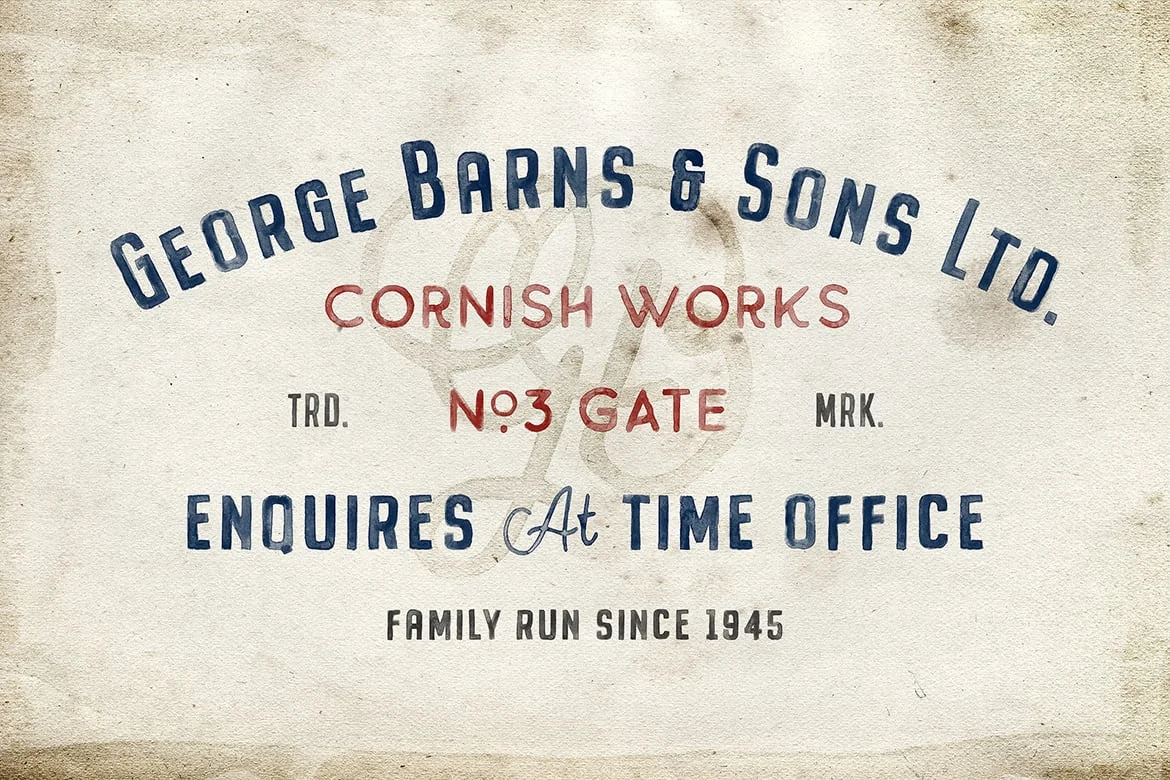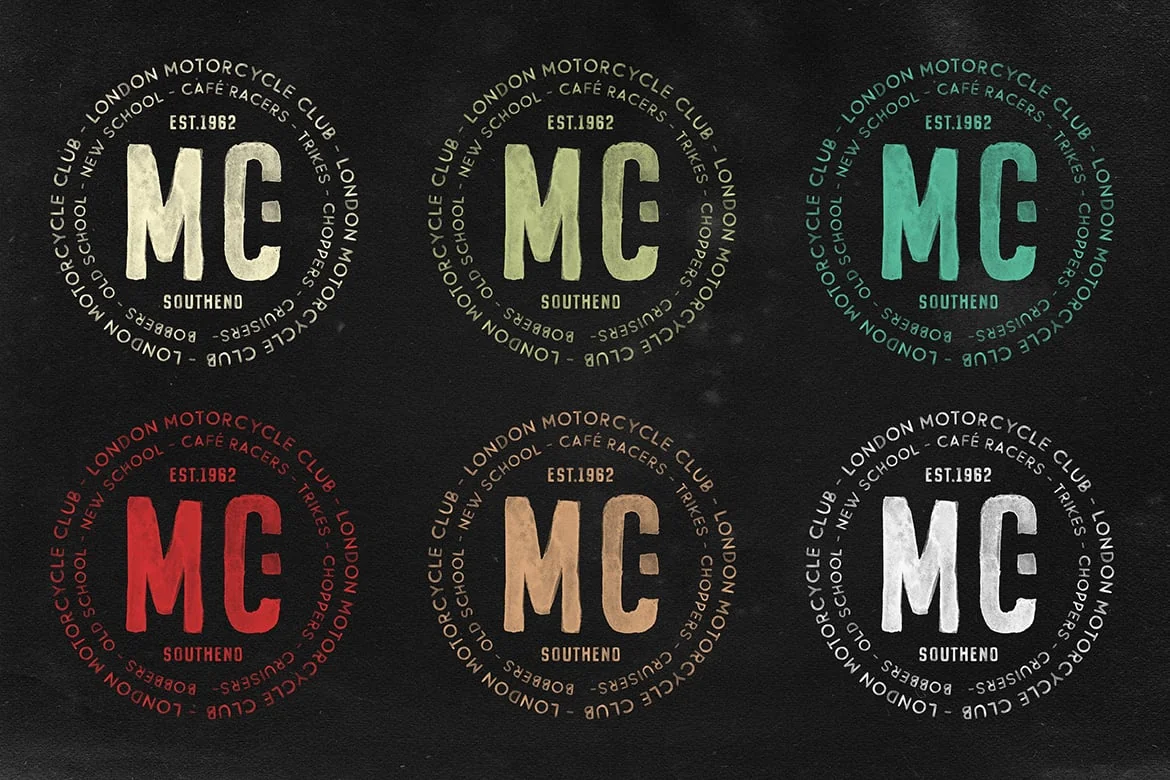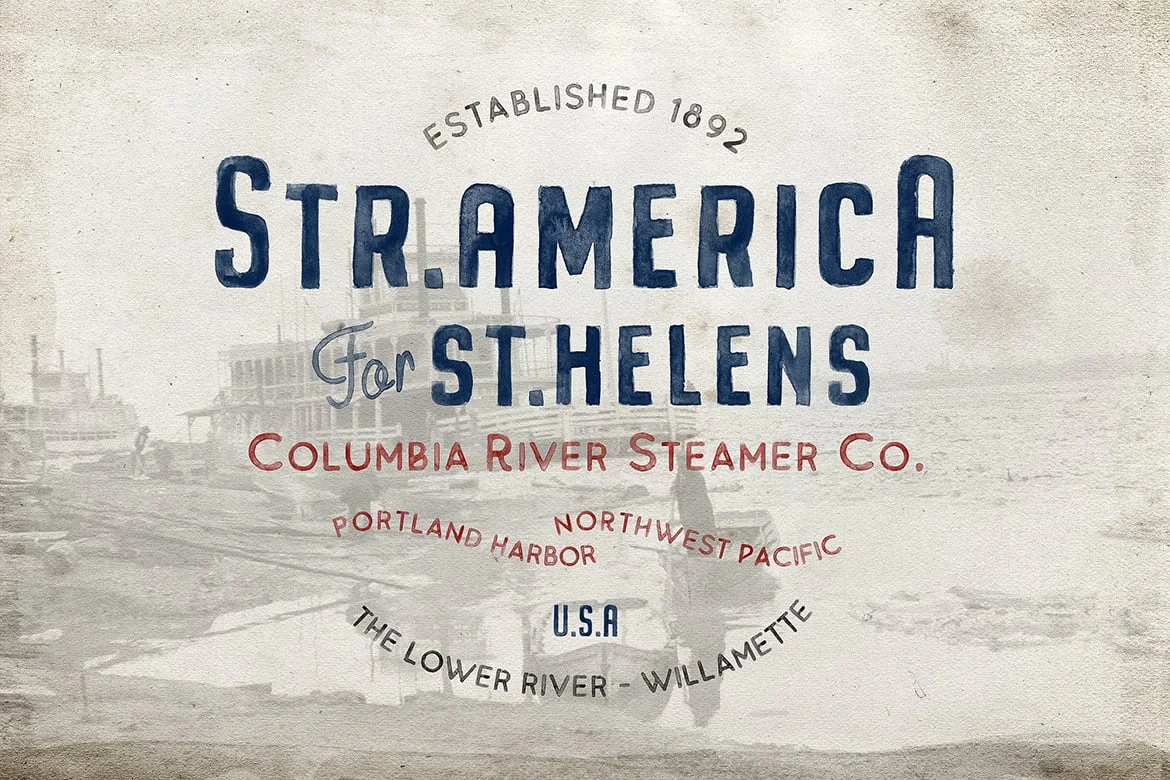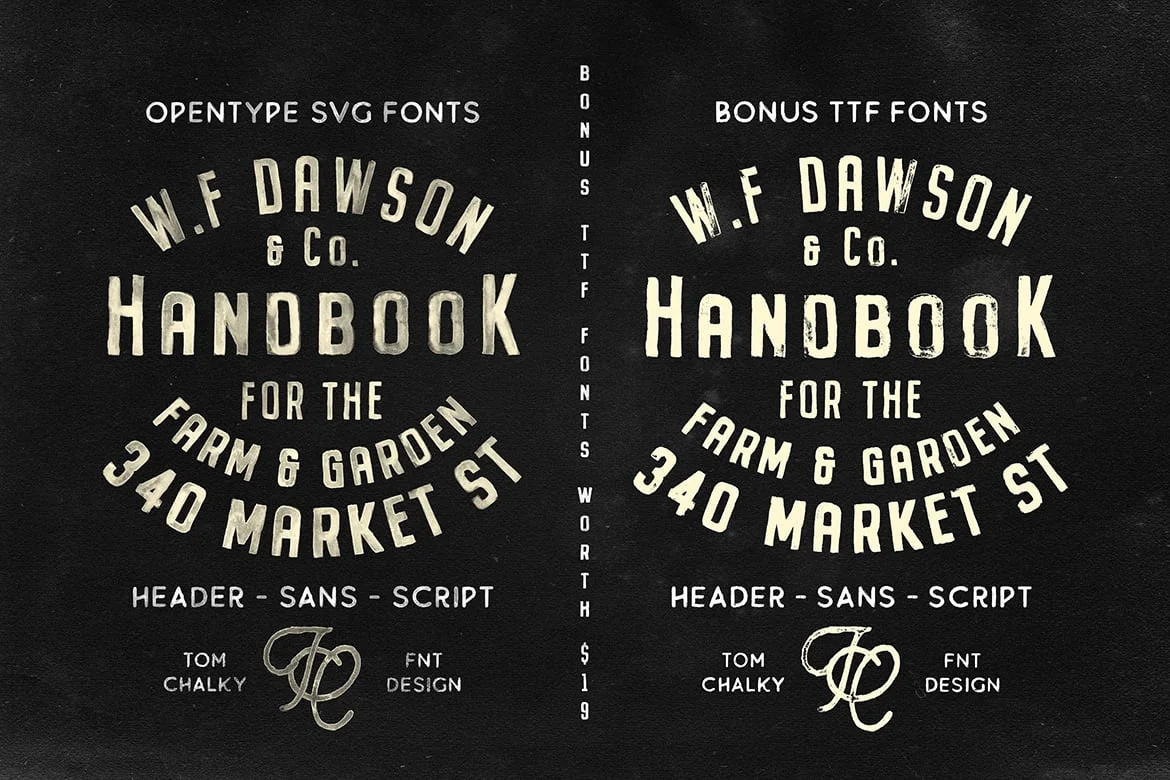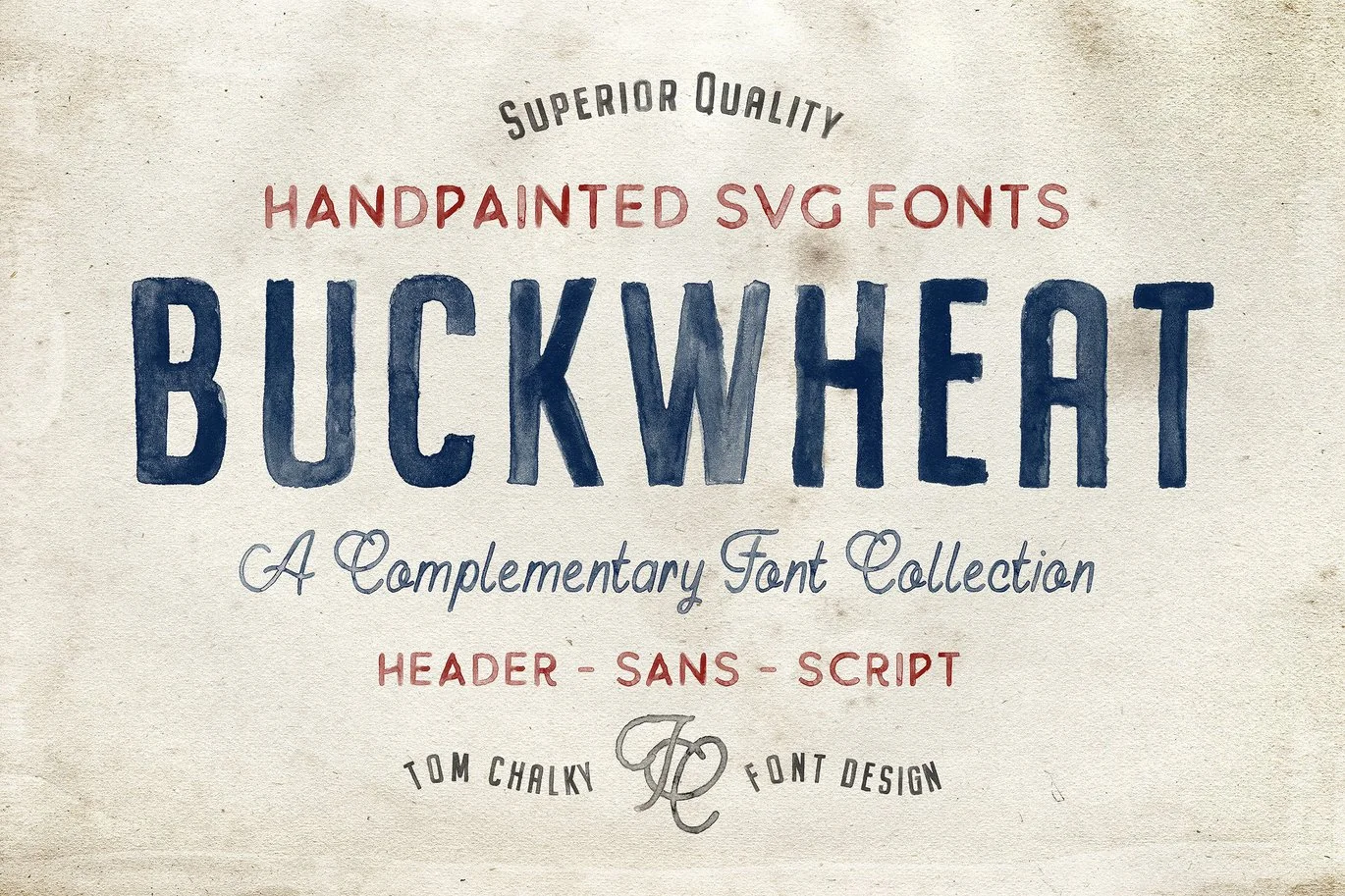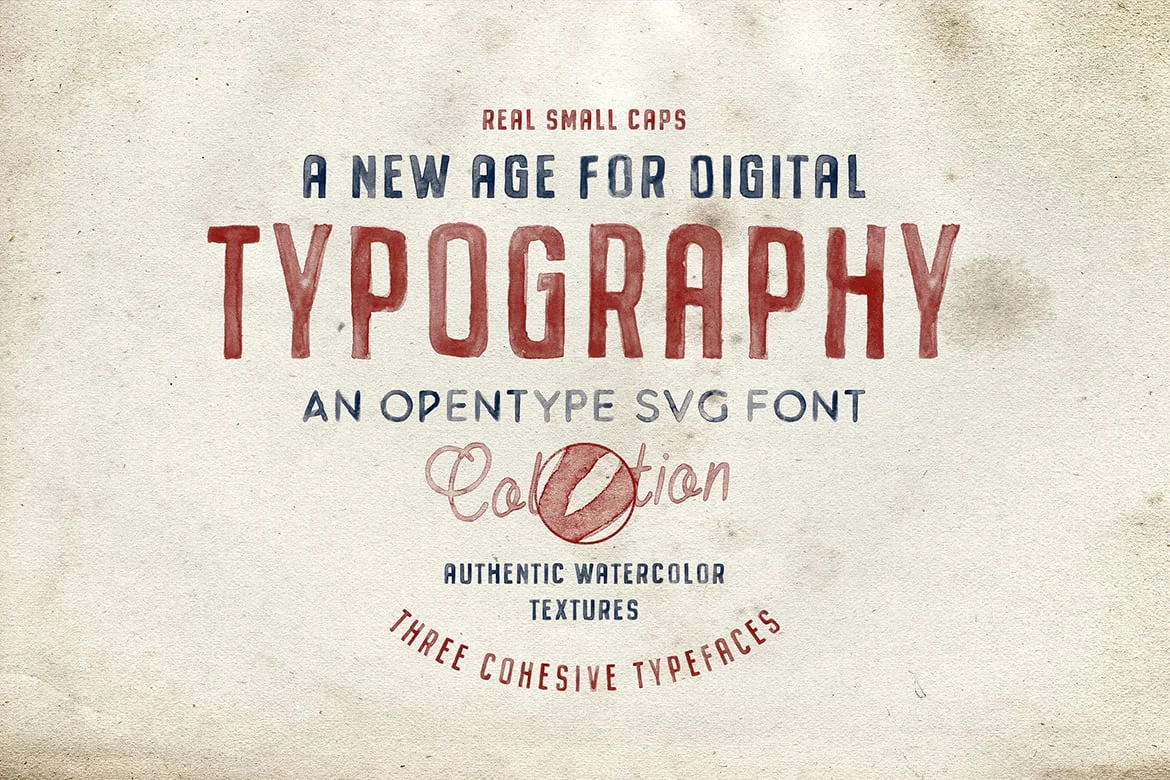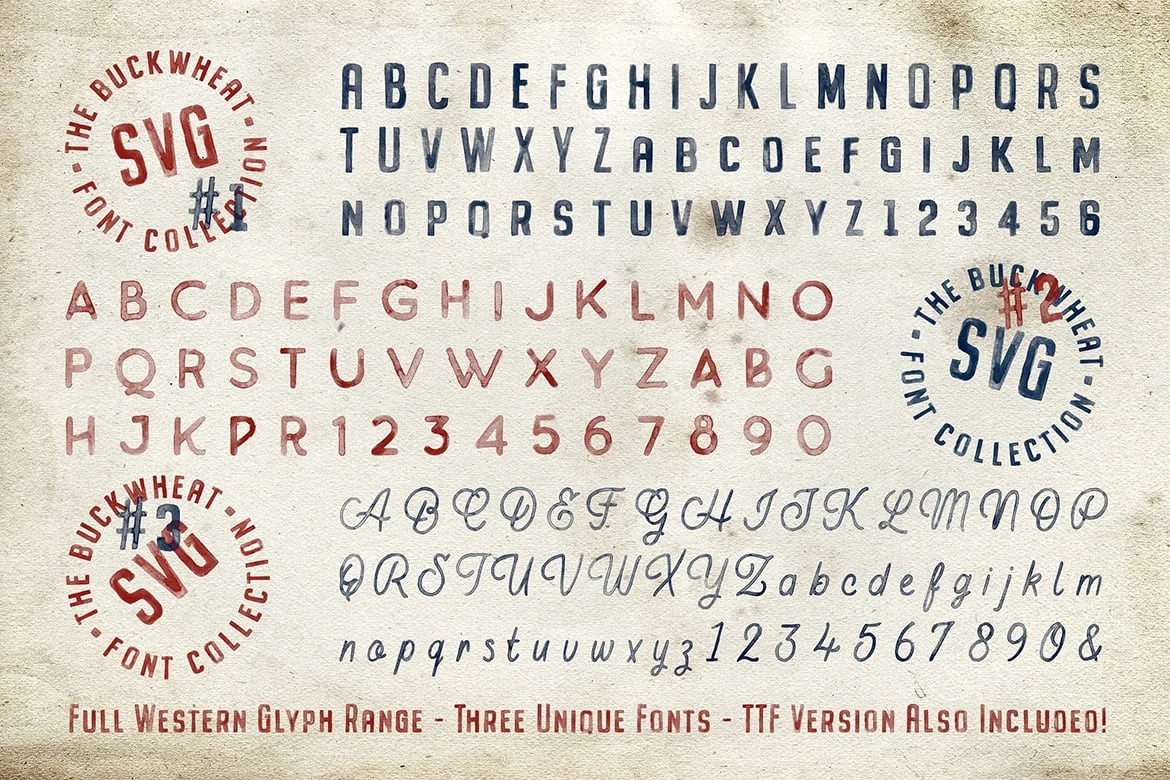
Buckwheat Opentype SVG Fonts
Introducing the Buckwheat Opentype SVG Font Collection
What the heck are Opentype SVG Fonts?! Opentype SVG is an entirely new font format that functions similarly to standard fonts. The big difference is that this new format allows font designers to incorporate as much detail as our hearts desire into our creations by using high-resolution bitmap images for the letters as opposed to traditional vector, something that was taken full advantage of when creating this collection!
The Buckwheat SVG font collection includes three unique Opentype SVG fonts featuring an entirely hand-painted, multilingual glyph range with high-quality and authentic textures built in, with zero extra work required! Much like real paint, the textures are transparent, enhancing the overall effect.
- Buckwheat TC SVG A condensed heading/titling font boasting real small caps (along with numerals, currency glyphs and more to match the small caps).
- Buckwheat TC Sans SVG A rounded sans-serif font with several stylistic alternatives for various capitals (A, B, G, H, J, K, P, and R).
- Buckwheat TC Script SVG Tying everything together, a simple yet effective monoline script font.
- Vectored TTF Versions of each of the fonts above While this traditional set of fonts do not feature the same level of detail as their SVG counterparts, they sure as hell make for a robust and effective family – one that I would sell for $19 on its own! (See screenshot No.4)